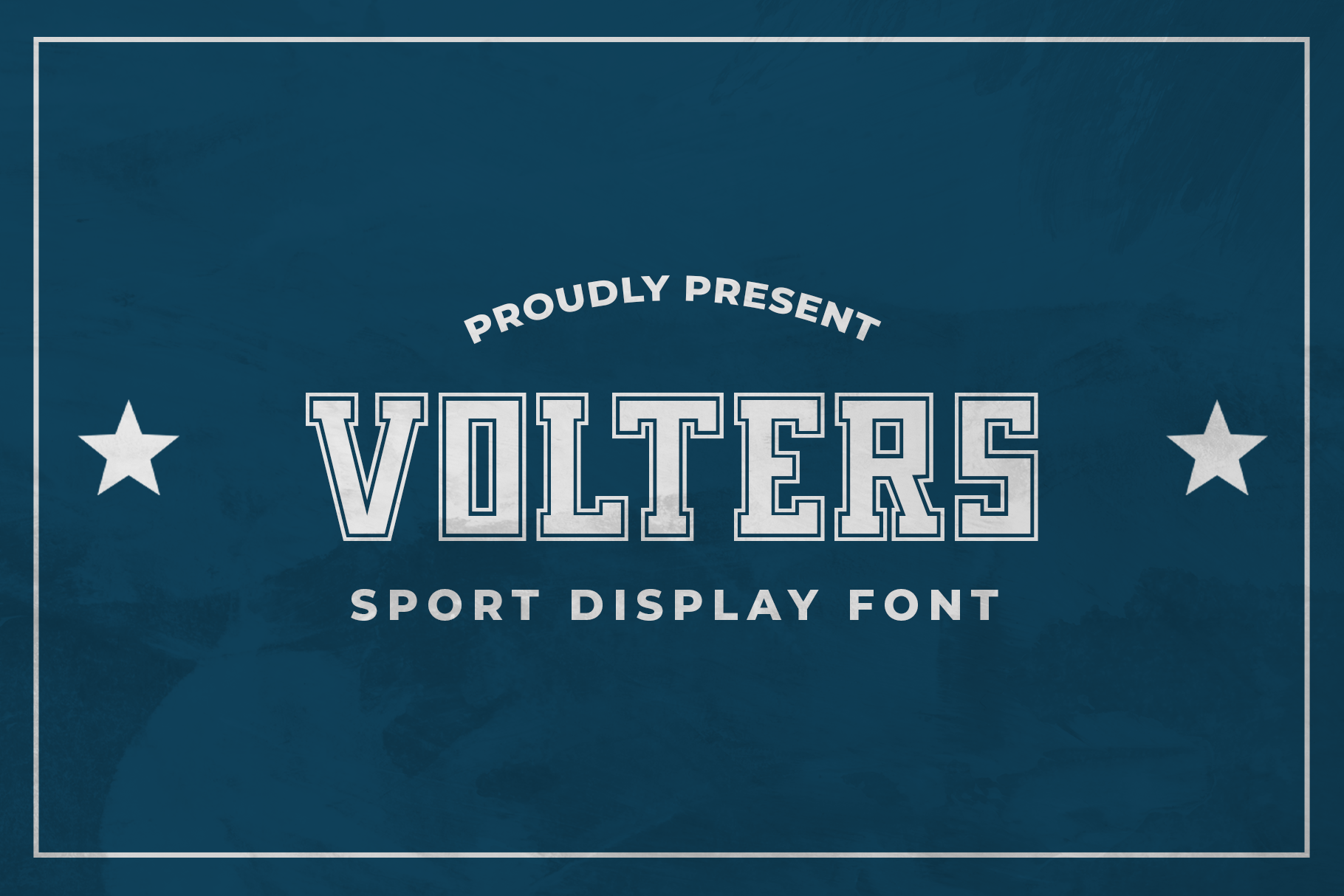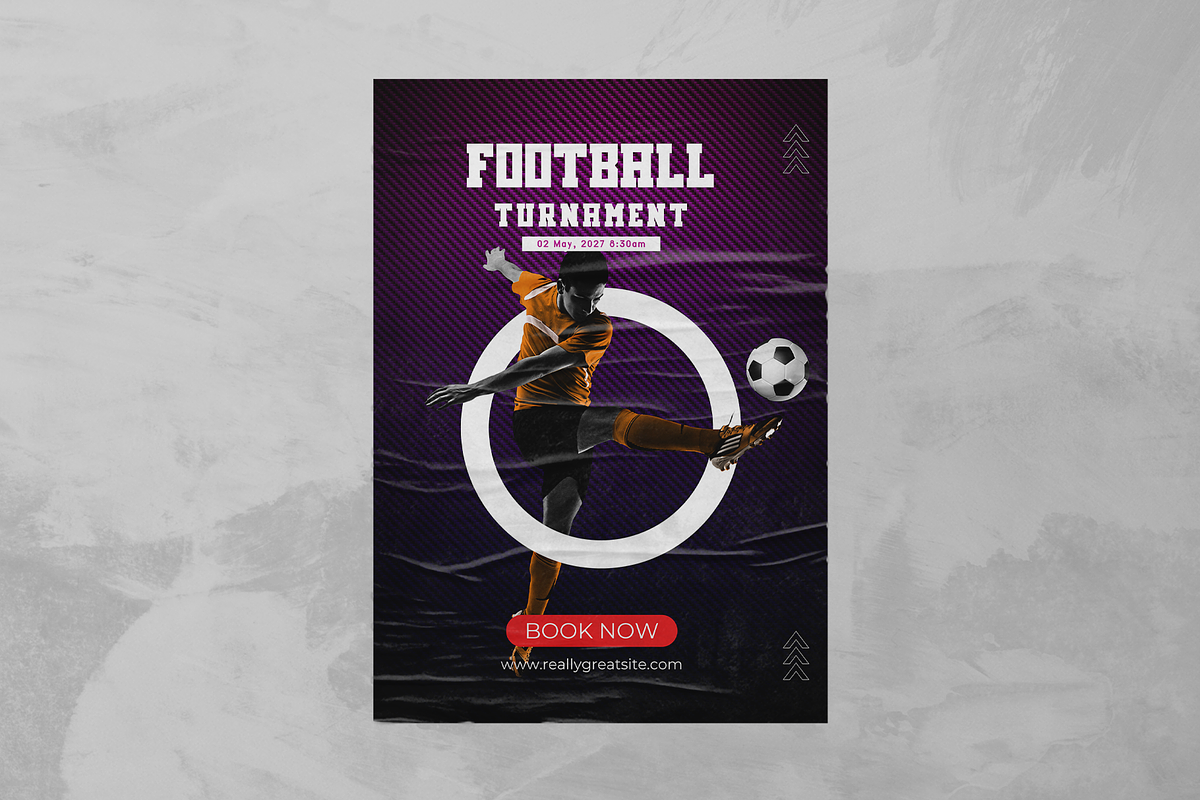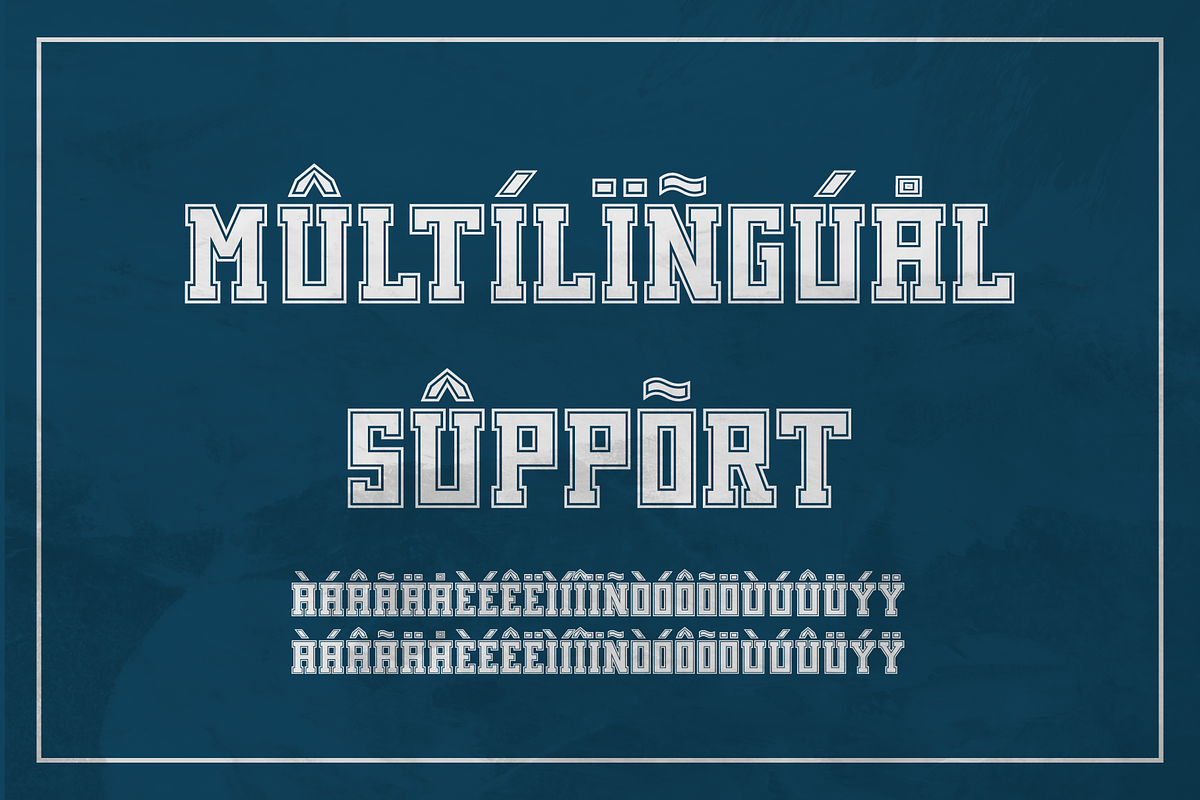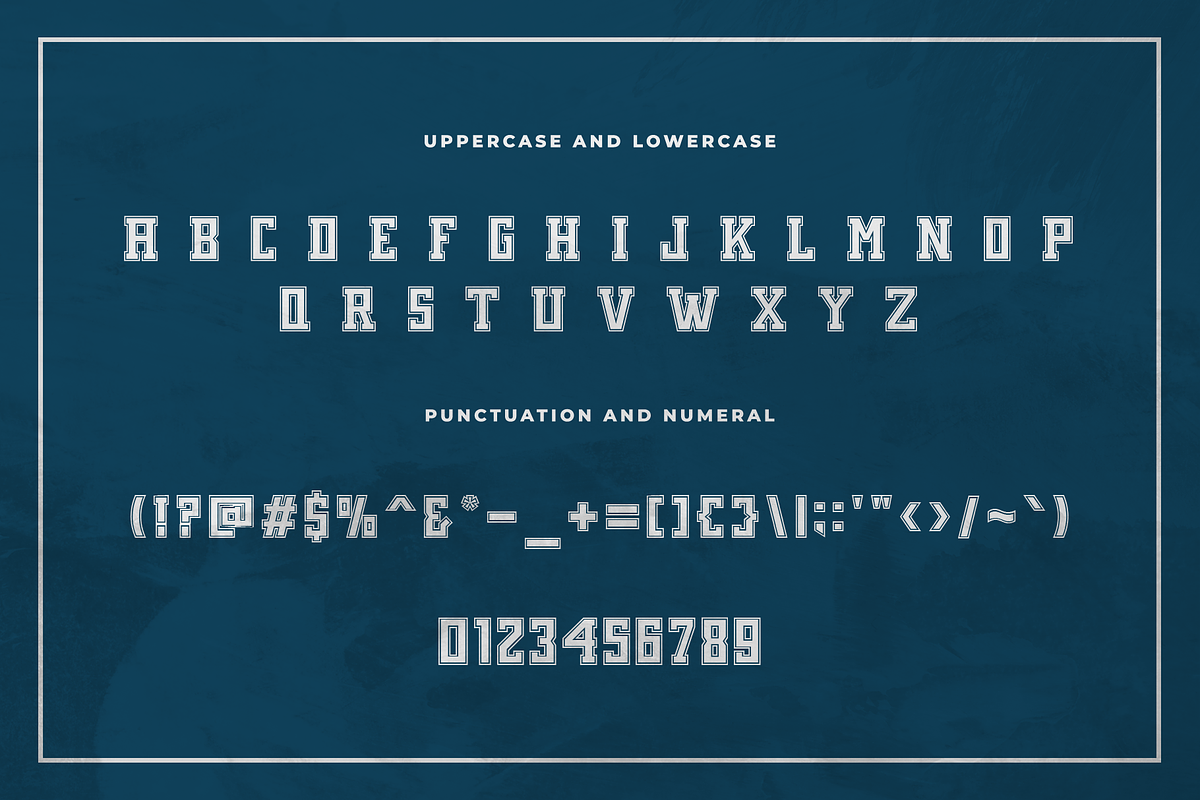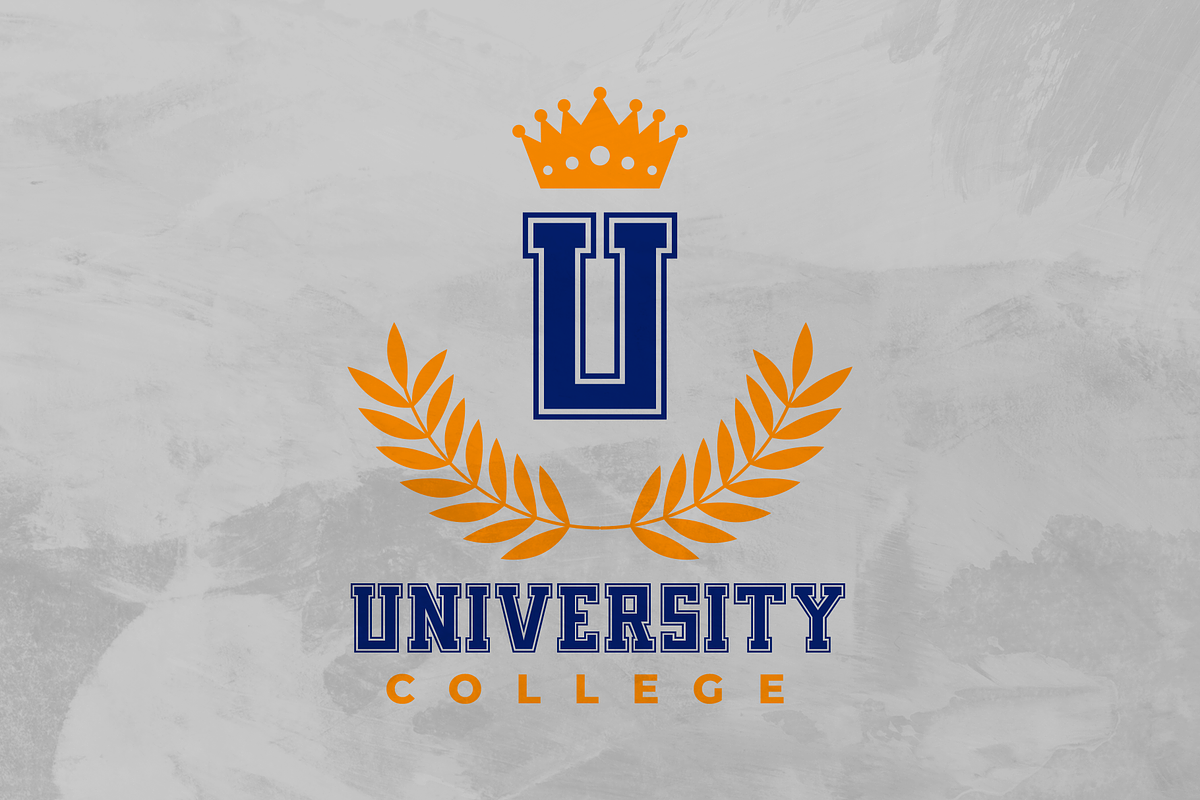
Volters - A Sport Display Font
Volters is a dynamic and powerful sport display font designed to bring energy and intensity to your design projects. With its bold shapes and aggressive letterforms, Volters is perfect for sports team branding, athletic event posters, dynamic logos, and merchandise design. This font captures the essence of competition and strength, ensuring your work stands out with a commanding and fierce presence.
Designed with precision, Volters features strong and impactful characters that offer excellent readability and visual power. Its sport-inspired design makes it ideal for display purposes, providing a bold and energetic feel. The font’s versatility allows it to adapt seamlessly to various design contexts, from digital platforms to printed materials, making it a valuable asset for any designer aiming to create striking and action-packed visuals.
Elevate your design projects with Volters, a font that embodies the spirit of athleticism and vigor. Its unique style and adaptability make it an essential addition to any designer’s toolkit for crafting bold and captivating sports-themed designs. Enhance your work with Volters and experience the adrenaline of sport typography.